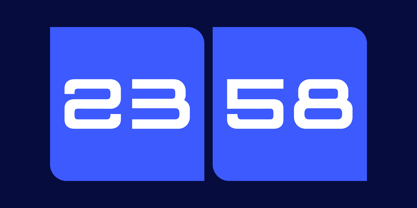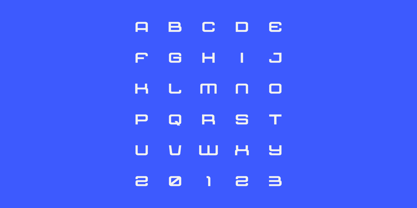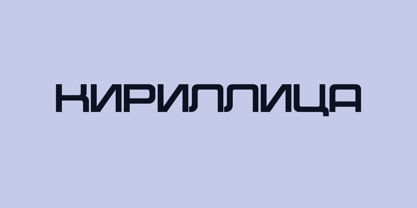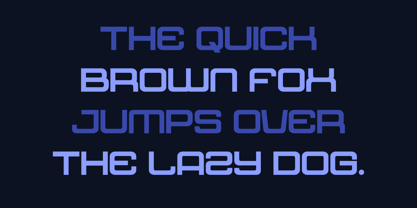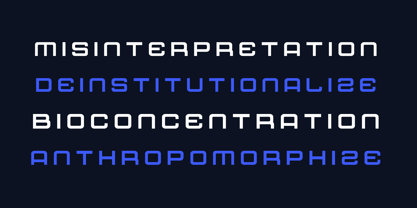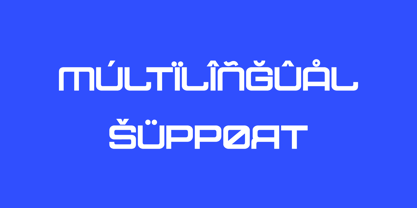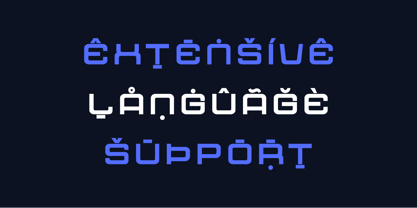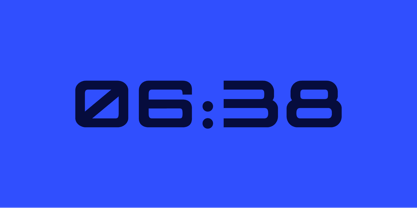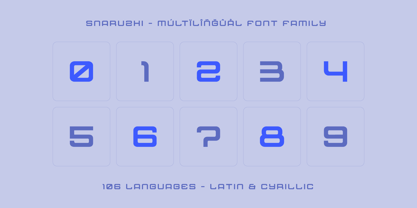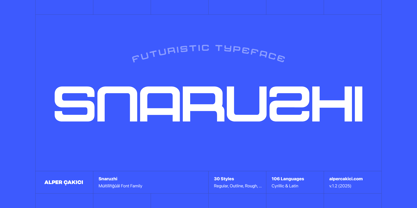
Snaruzhi
by AlperCakici
The Snaruzhi Font Family was designed by Alper Çakıcı and published by AlperCakici. Snaruzhi contains 30 styles and family package options. More about this family
Snaruzhi is a futuristic bold typeface engineered for maximum visual impact and high-tech expression. Built with clean geometry and powerful presence, Snaruzhi delivers a contemporary voice perfect for digital interfaces, sci-fi branding, esports identities, and standout editorial design. Its sharply defined curves and confident weight give it a uniquely modern tone — assertive, stylish, and unmistakably forward-thinking. Snaruzhi is designed for designers who want to communicate innovation with absolute clarity. Supporting 106 languages, Snaruzhi is ready for global brands and multilingual creative work. Whether you're building UI displays, poster titles, gaming graphics, or cinematic sci-fi worlds, Snaruzhi gives your typography a bold, futuristic signature. Key Features: • Strong, futuristic display style • Bold weight for maximum impact • Precise geometric construction • Excellent readability at large sizes • Extensive Latin &Cyrillic coverage — 106 supported languages • Ideal for branding, UI design, gaming, tech, sci-fi, and posters
Designers: Alper Çakıcı
Foundry: AlperCakici